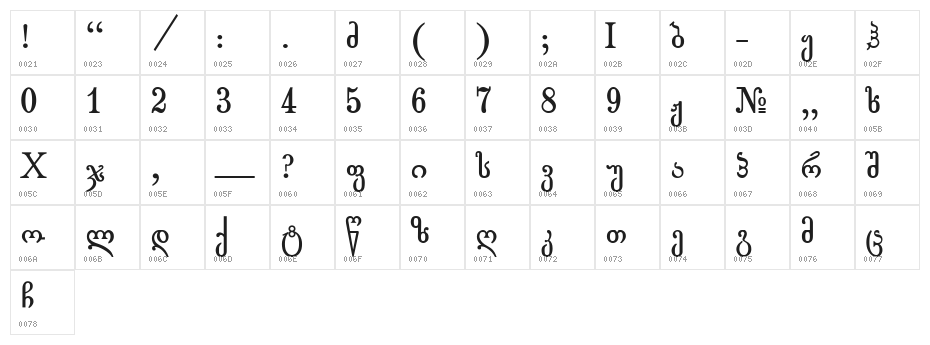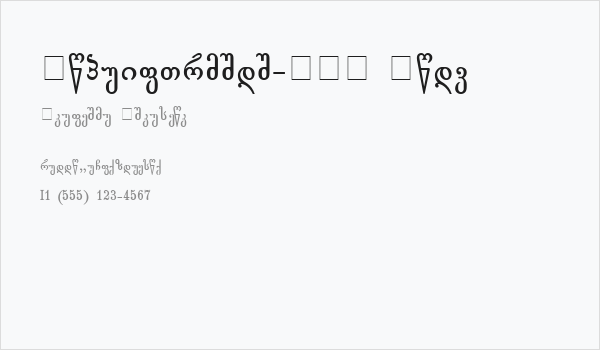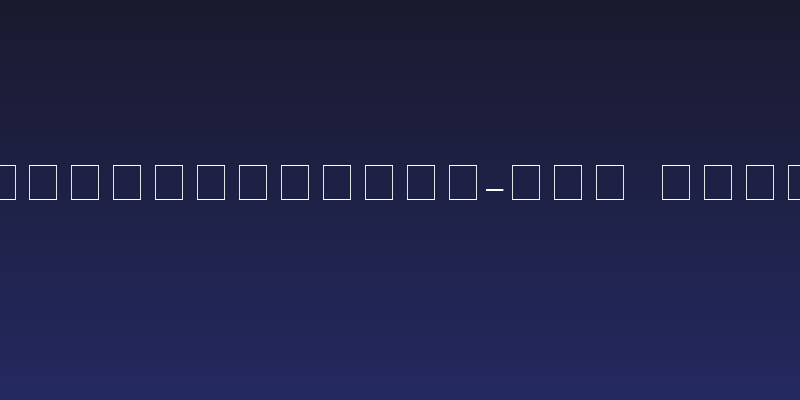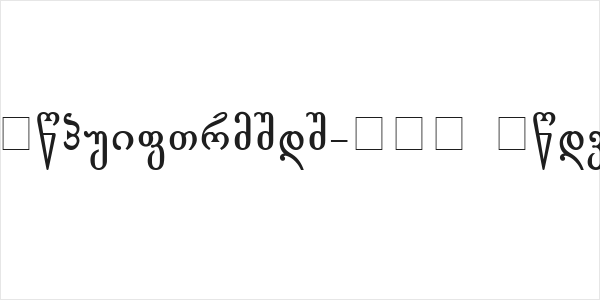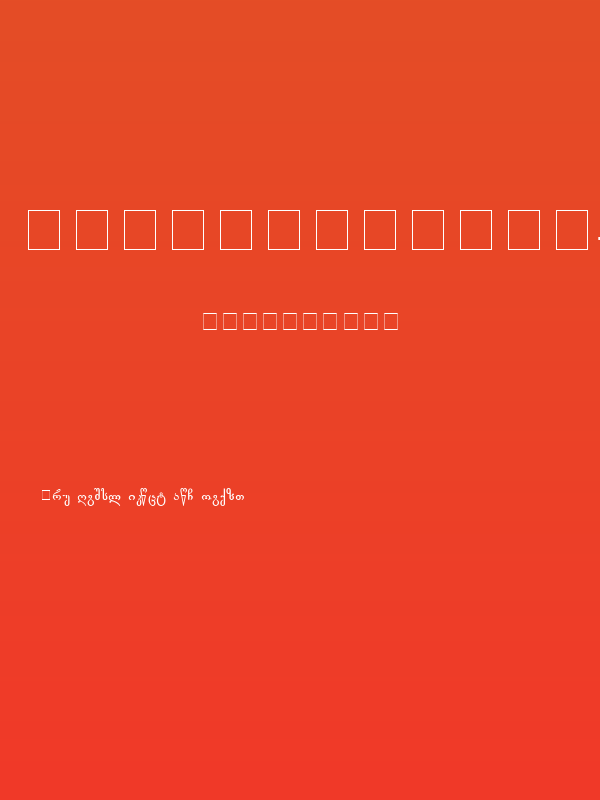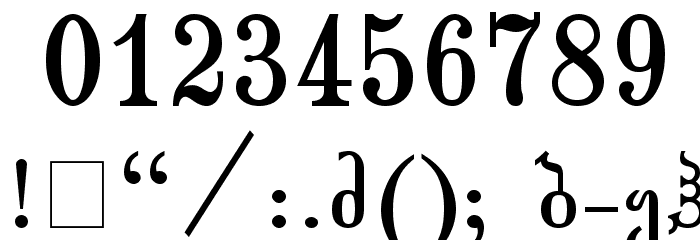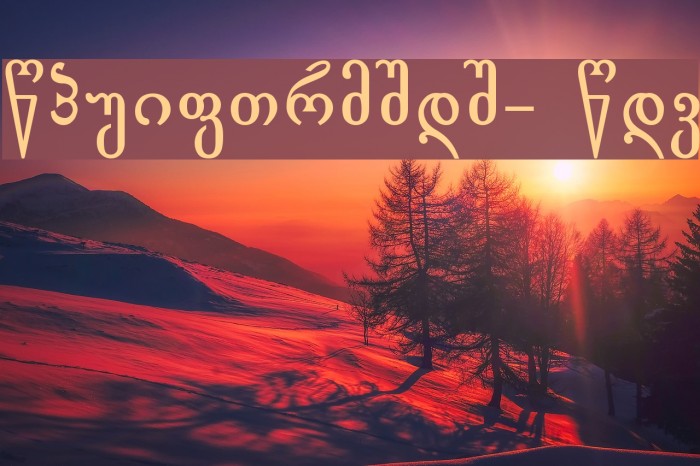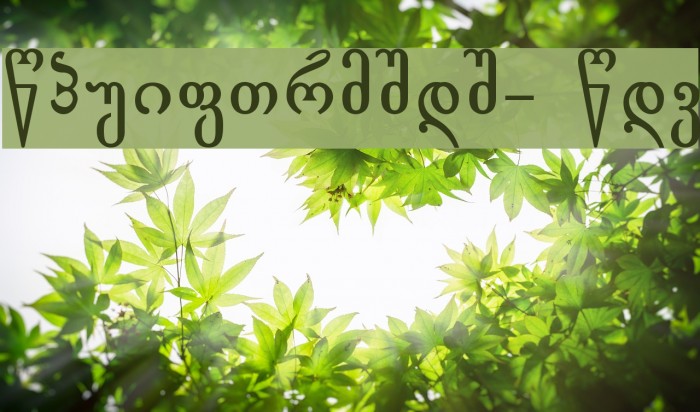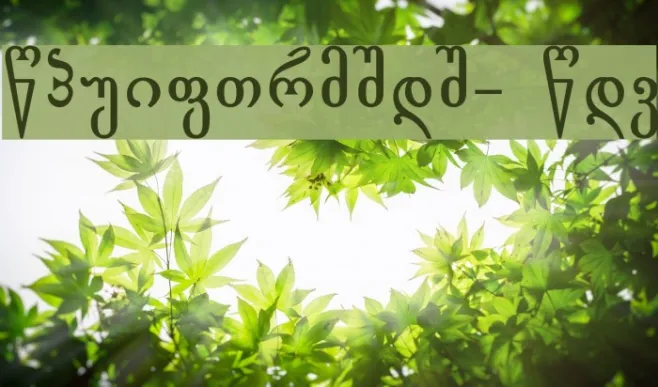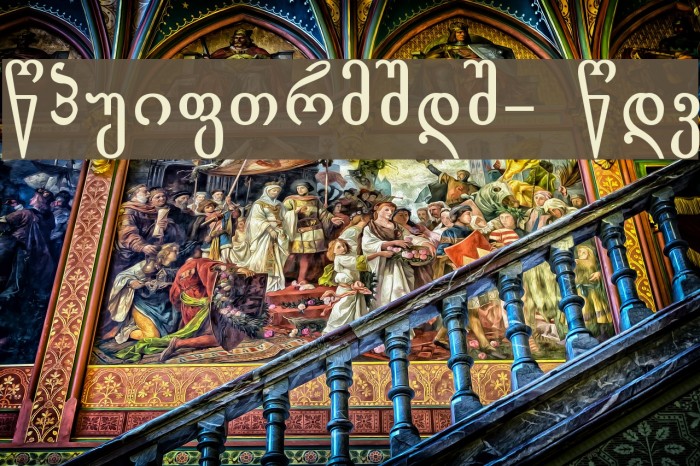
Gogebashvili-ITV Bold Font
Gogebashvili-ITV Bold Description
This font features a unique and artistic design, characterized by its bold and expressive curves. The letters exhibit a distinct flair with intricate detailing, making it stand out as a decorative typeface. The numerals are equally stylized, maintaining the overall aesthetic of the font. Special characters are crafted with attention to detail, adding to the font's versatility. This typeface is ideal for projects that require a touch of elegance and creativity, offering a blend of traditional and modern elements.